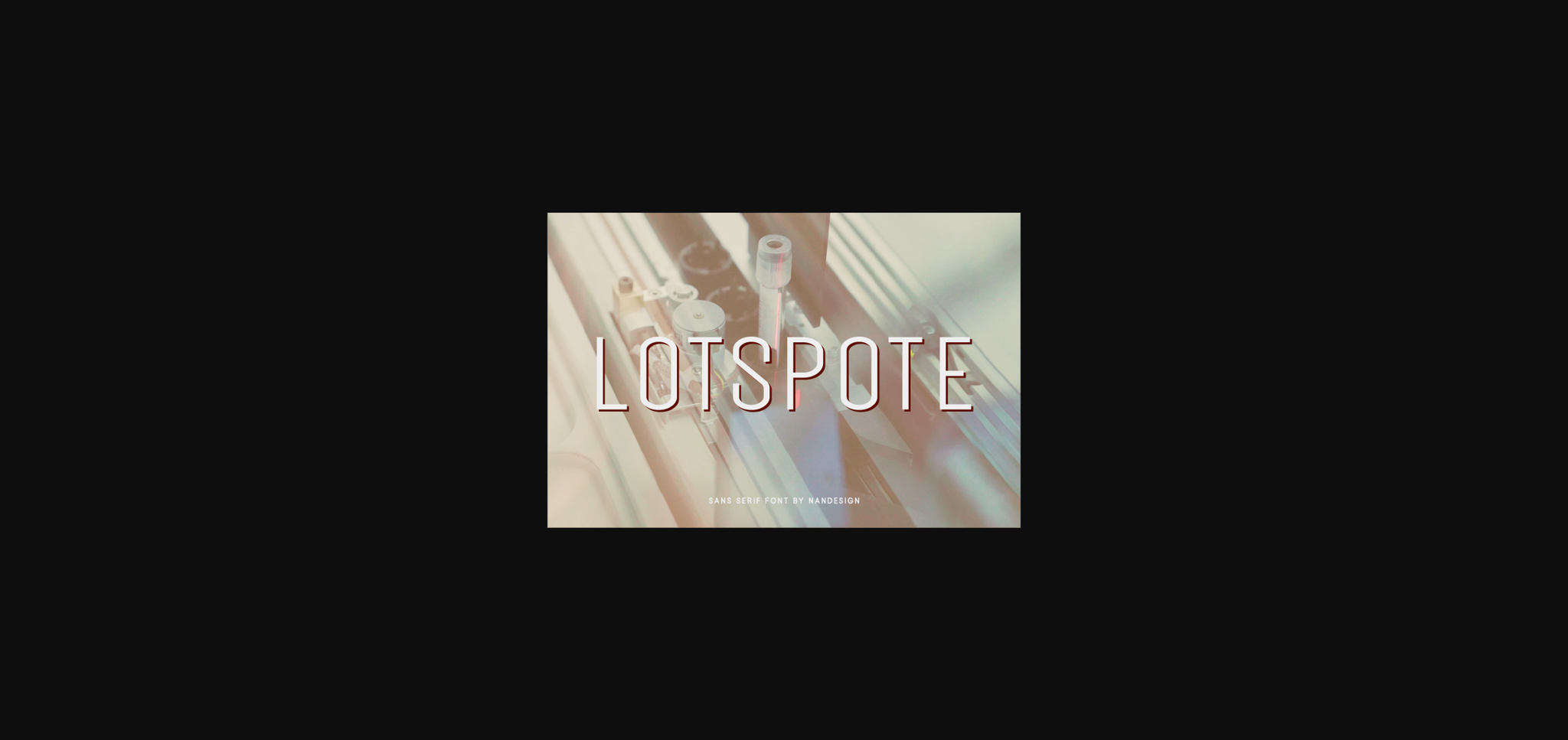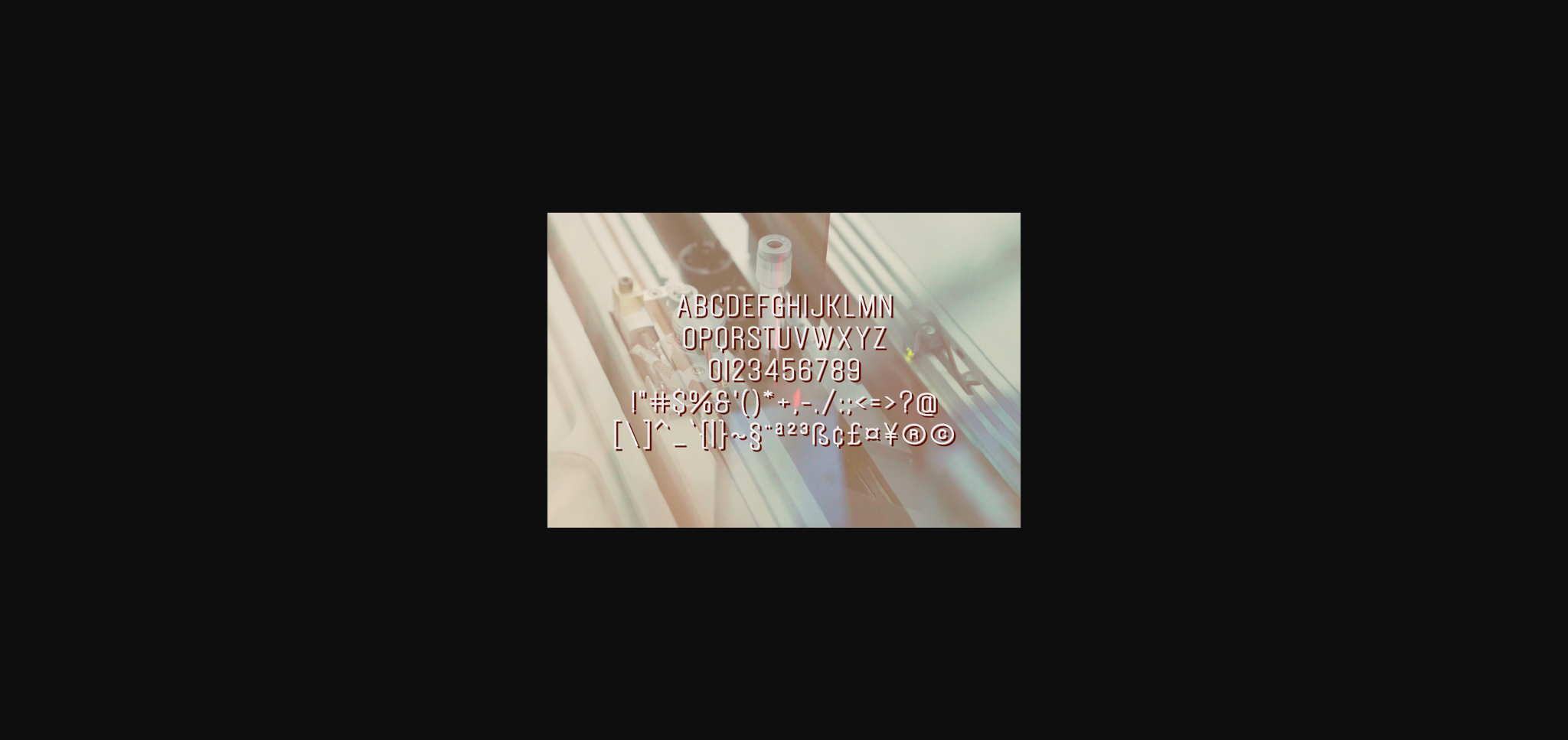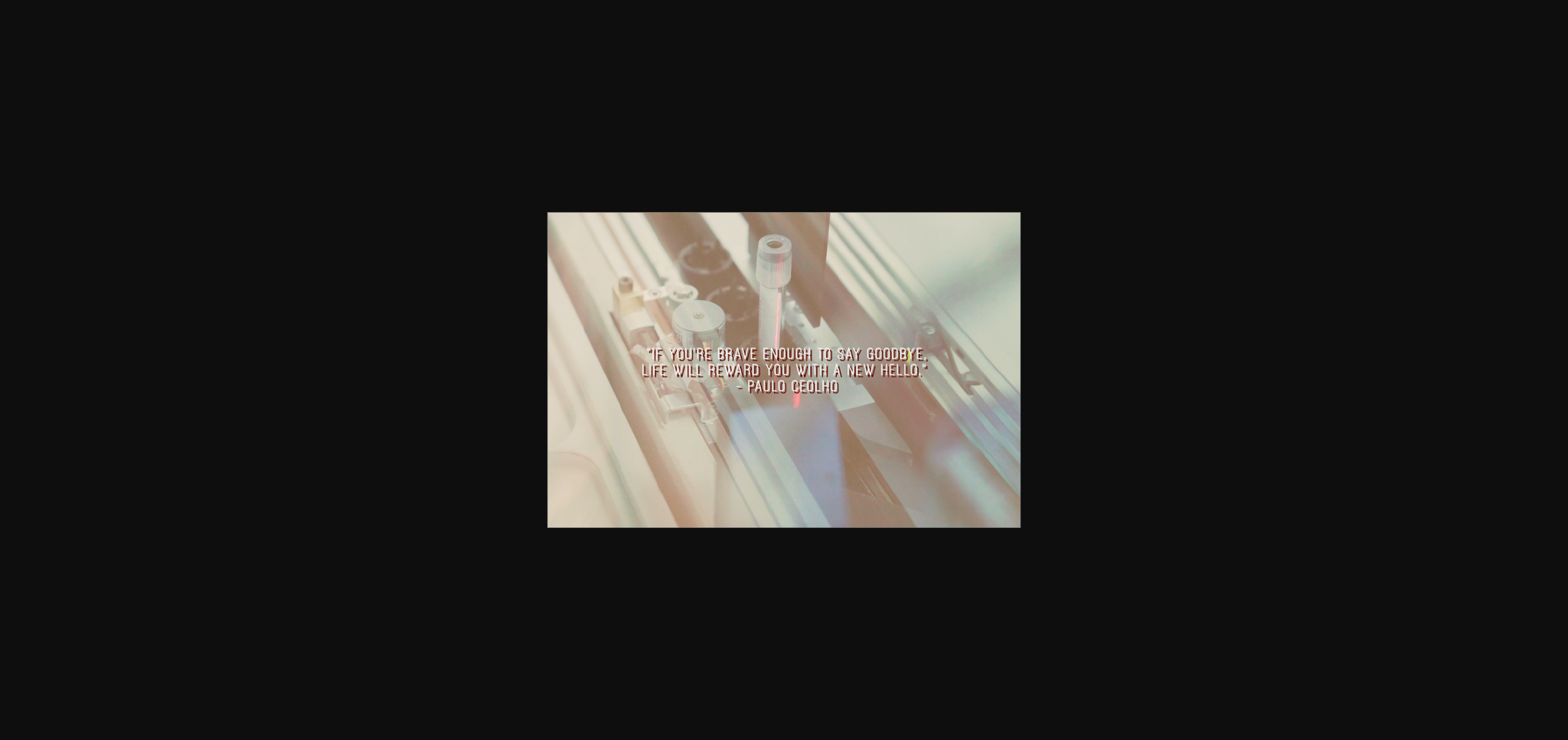
About Lotspote Font
Lotspote is a tall and simple sans serif font, created to to complement every design idea you’re working on.
Use it to make beautiful headings, invitations, stunning logos, and so much more!